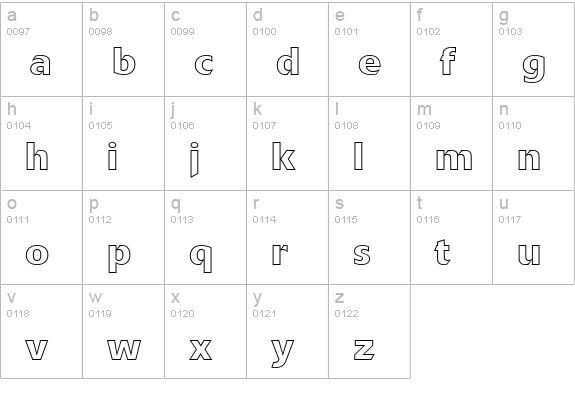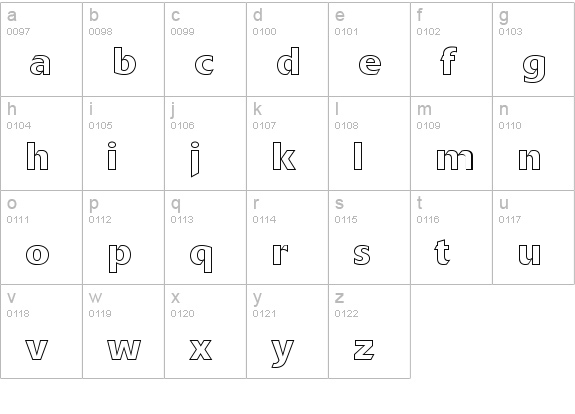
Delta Jaeger Outline font is a stunning display typeface that exudes elegance and sophistication. Its bold outlines and modern design make it perfect for various creative projects, from branding to posters to social media graphics. The font's clean lines and sharp edges give it a contemporary yet timeless feel, making it a versatile choice for both digital and print designs. The best part? Delta Jaeger Outline font is available for free download at FontsMarket.com. This means you can easily add this stylish typeface to your collection without breaking the bank. Whether you're a seasoned designer looking to refresh your font library or a newcomer exploring typography for the first time, Delta Jaeger Outline font is sure to inspire and elevate your work. Download it today and unleash your creativity with this sleek and impactful font.